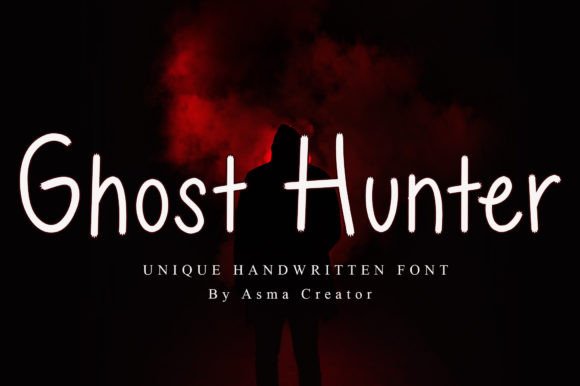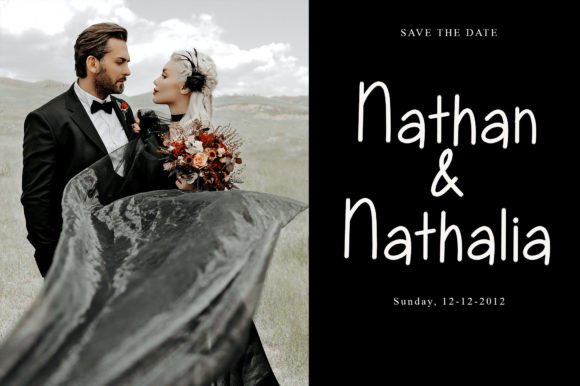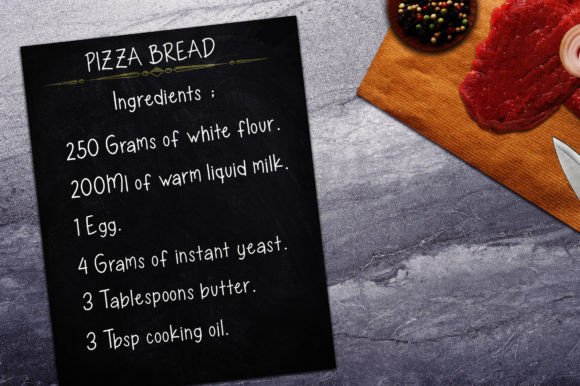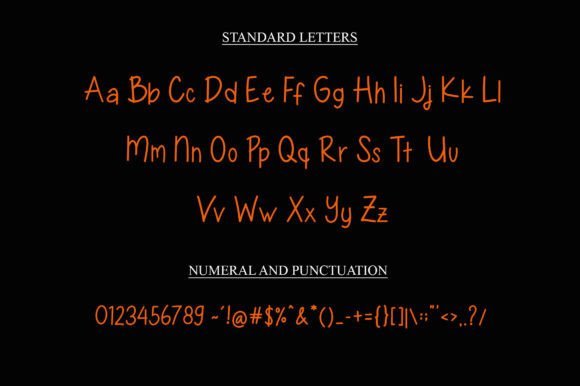
About Ghost Hunter Font
“Ghost Hunter” is a font with a charming and unique personality that sets it apart from the ordinary. Its cool and handwritten style infuses a sense of whimsy and creativity into any project, making it a versatile asset for designers and creators.
The handwritten charm of “Ghost Hunter” is evident in its playful, irregular strokes that mimic the spontaneity of natural handwriting. This font is not bound by rigid, uniform lines but instead celebrates the quirks and individuality of each letter. This makes it an ideal choice for projects where a touch of personality and charm is desired.
One of the remarkable qualities of “Ghost Hunter” is its versatility. Whether you’re designing a logo, crafting a poster, creating greeting cards, or adding a unique flair to your social media graphics, this font can be your go-to choice. It adapts effortlessly to a wide range of design applications, infusing each project with a sense of creativity and charm.
With “Ghost Hunter” in your font library, you have the potential to transform any creation. It serves as a creative catalyst, inspiring fresh ideas and encouraging designers to think outside the box. Its uniqueness allows you to stand out in a crowded design landscape and leave a lasting impression on your audience.
As a font that adds a charming and handwritten touch to your projects, “Ghost Hunter” is more than just a typeface; it’s an invitation to explore your creative boundaries and create designs that are as unique and captivating as the font itself.
In conclusion, “Ghost Hunter” is a cool and charming handwritten font that has the potential to elevate any creation. Its versatility, creativity, and playful charm make it a valuable asset for designers and creators looking to infuse their projects with a touch of personality and uniqueness. With “Ghost Hunter” in your toolkit, you can turn ordinary designs into extraordinary works of art.